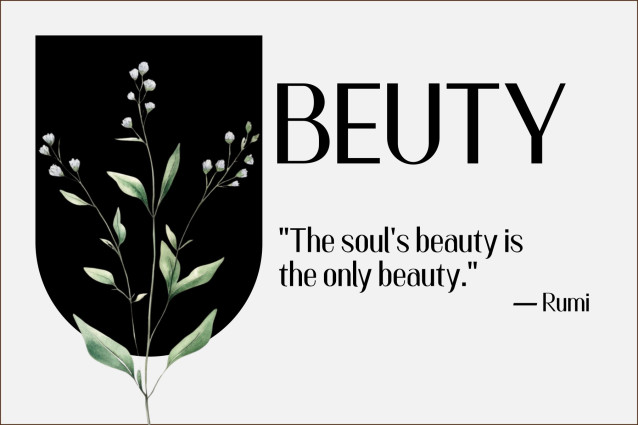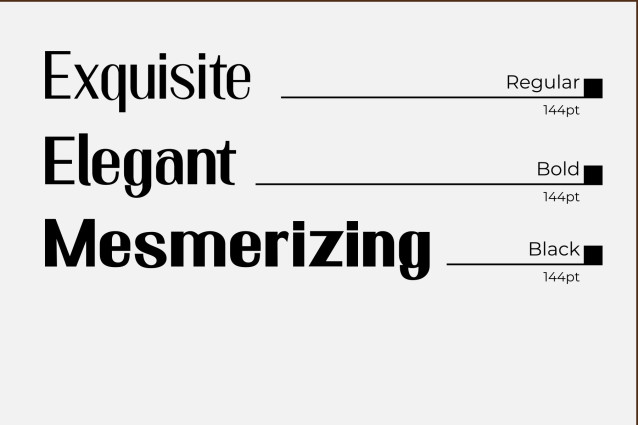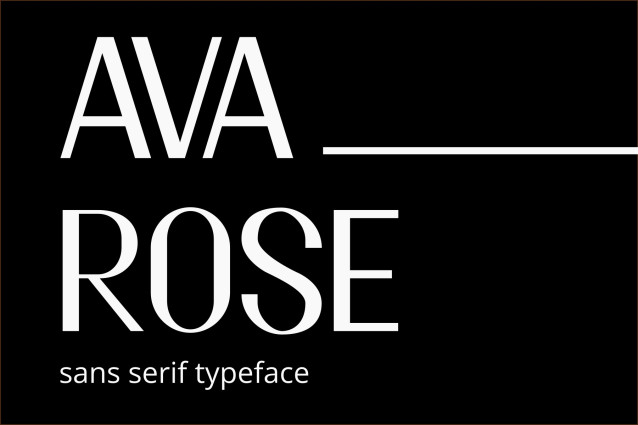
Avarose Font
AVAROSE Font: offers a sophisticated and contemporary aesthetic, exuding elegance and clarity with clean lines and balanced proportions. Using AVAROSE in your designs instantly elevates them with a sense of modern professionalism and casual elegance, ensuring your message is delivered with impressive readability and subtle visual appeal. This versatile font is ideal for branding, editorial layouts, website design, luxury product packaging and any creative project that wants to project a sleek, high-end image and command attention with timeless style. Download AVAROSE to unlock a sophisticated visual language that truly resonates.